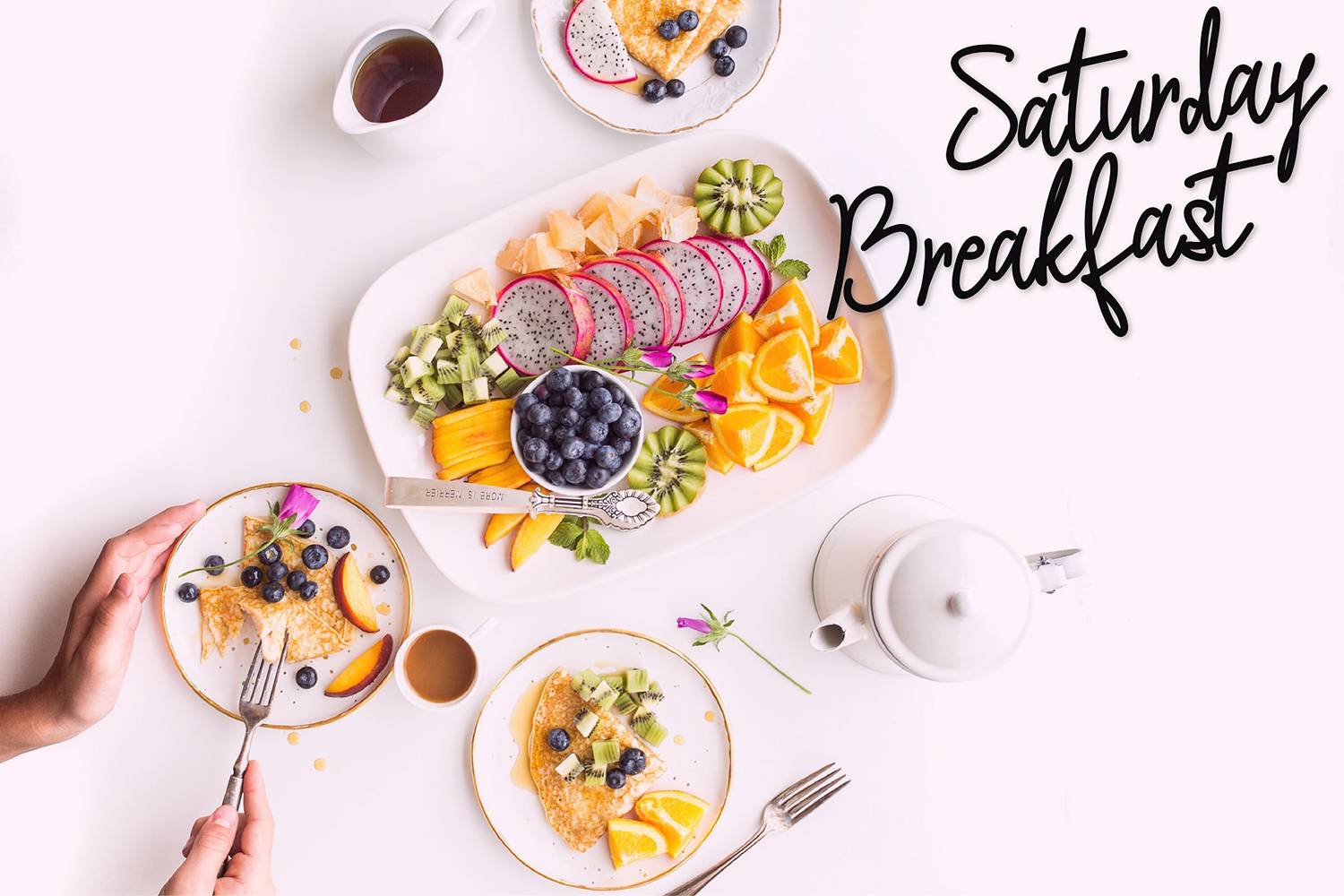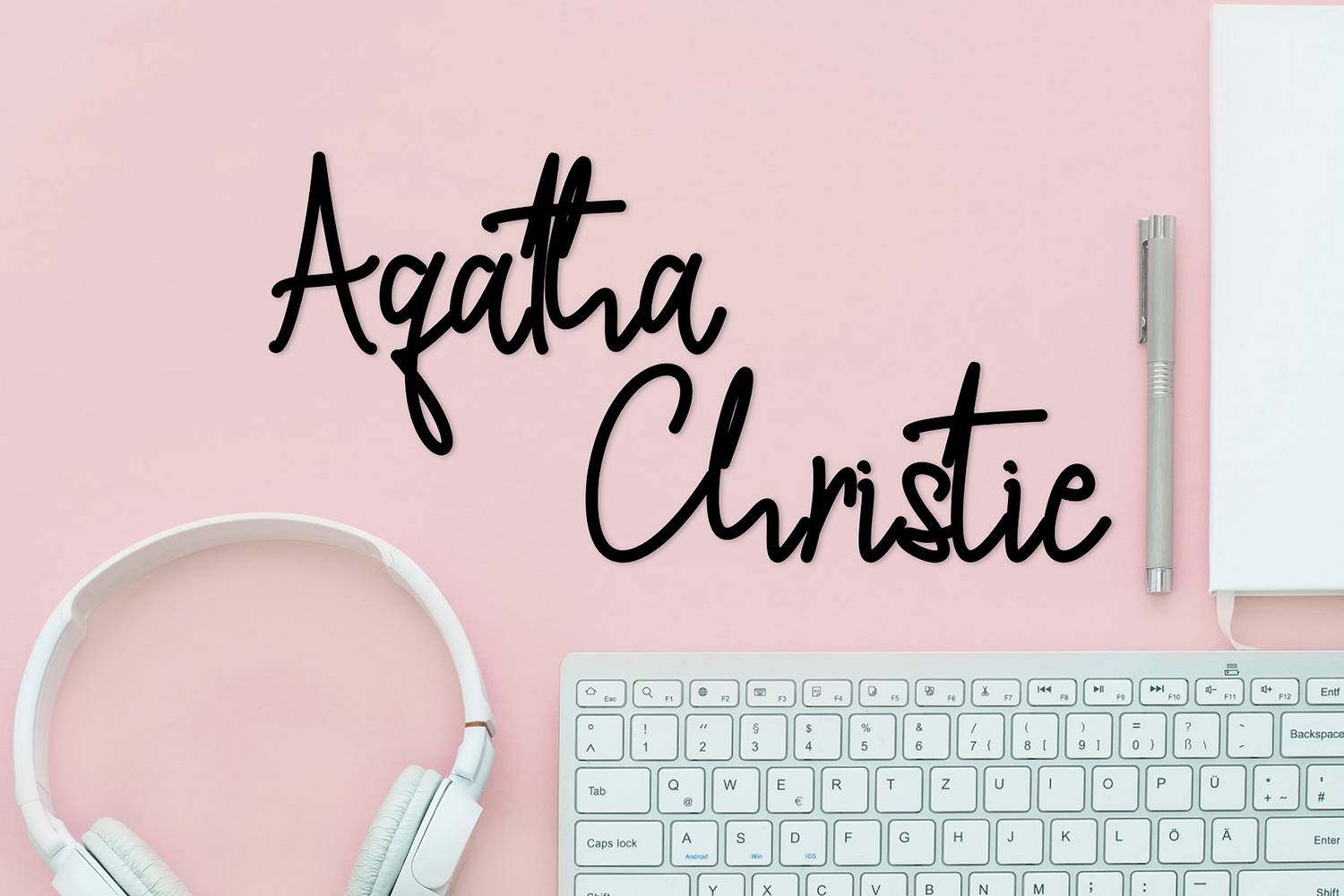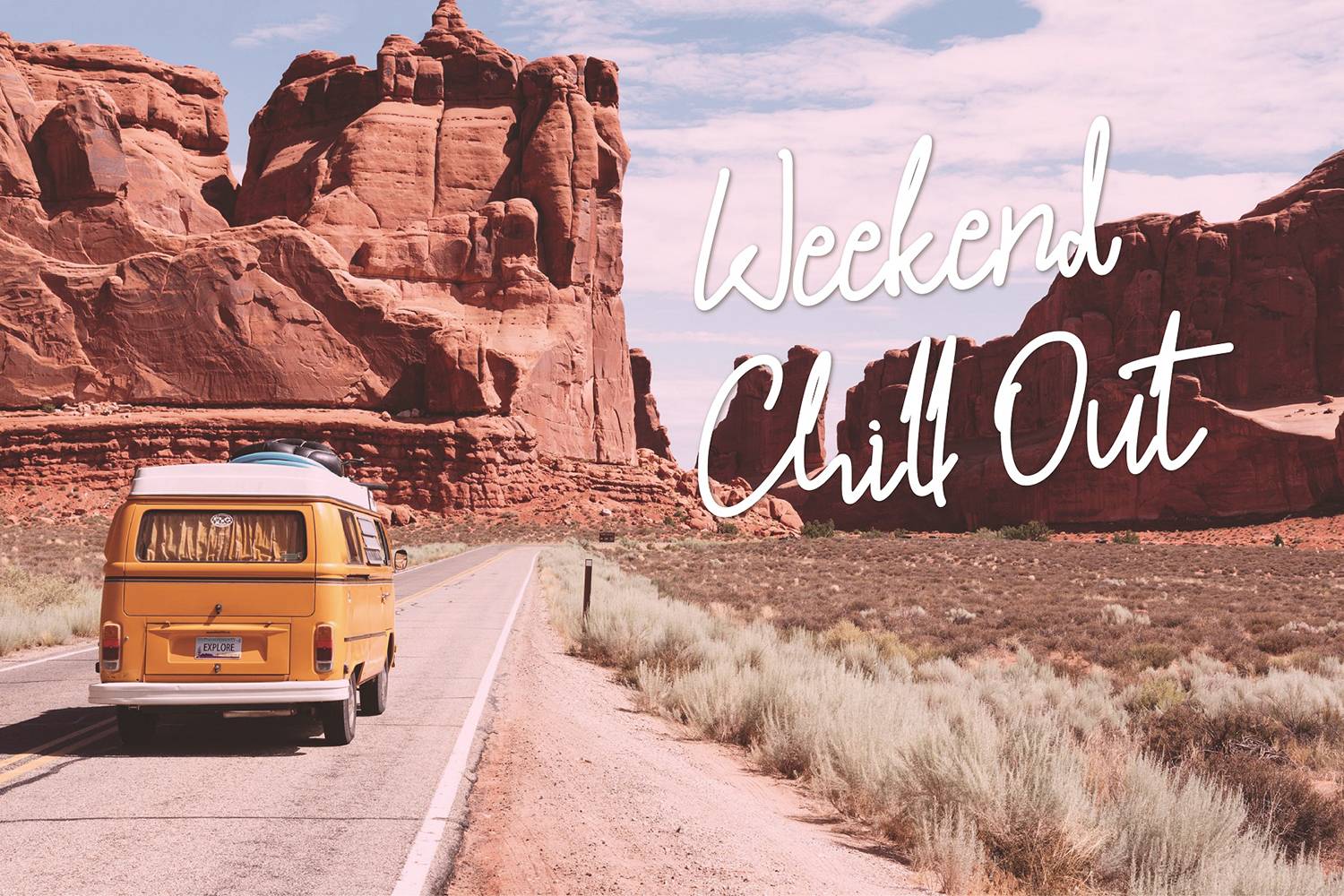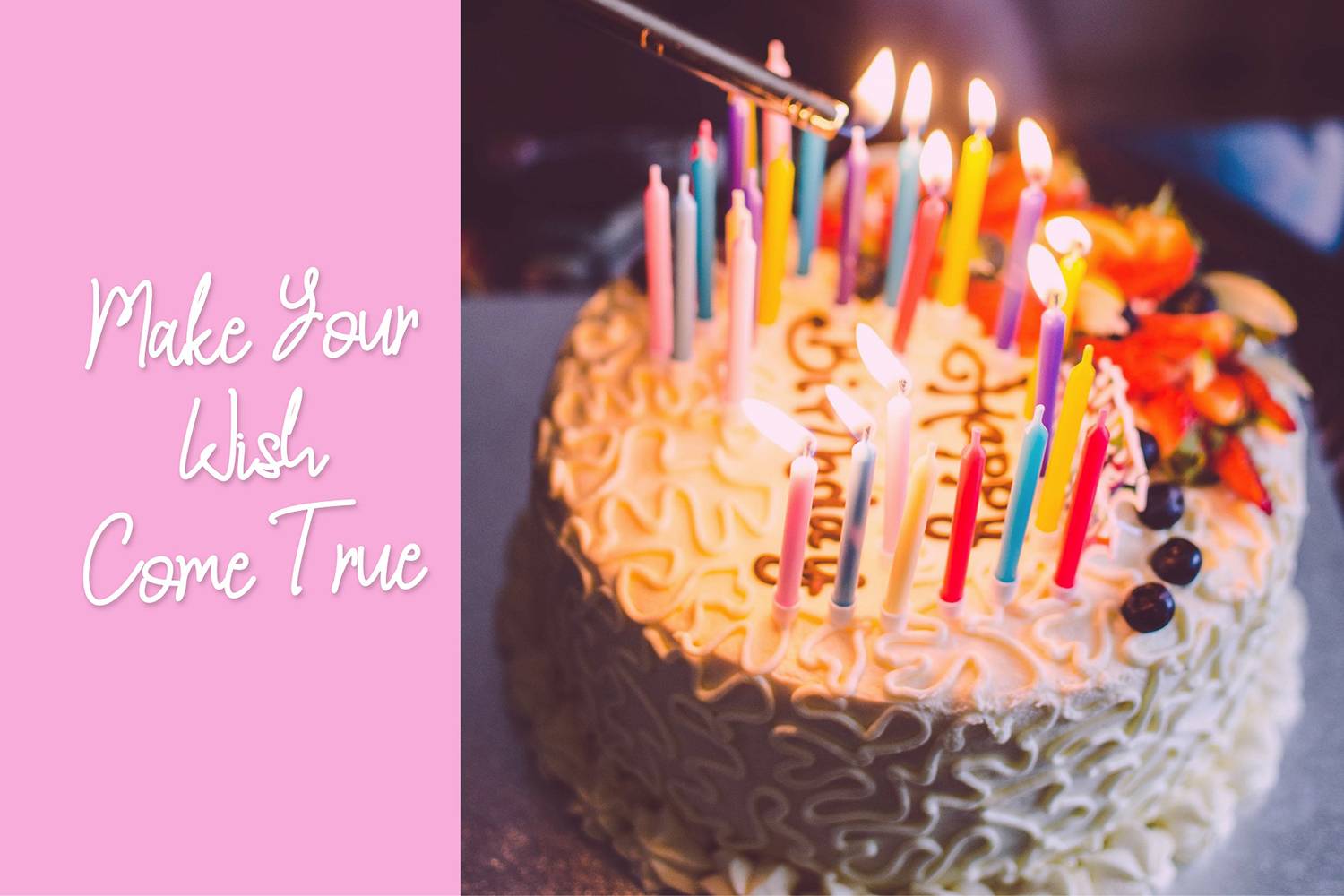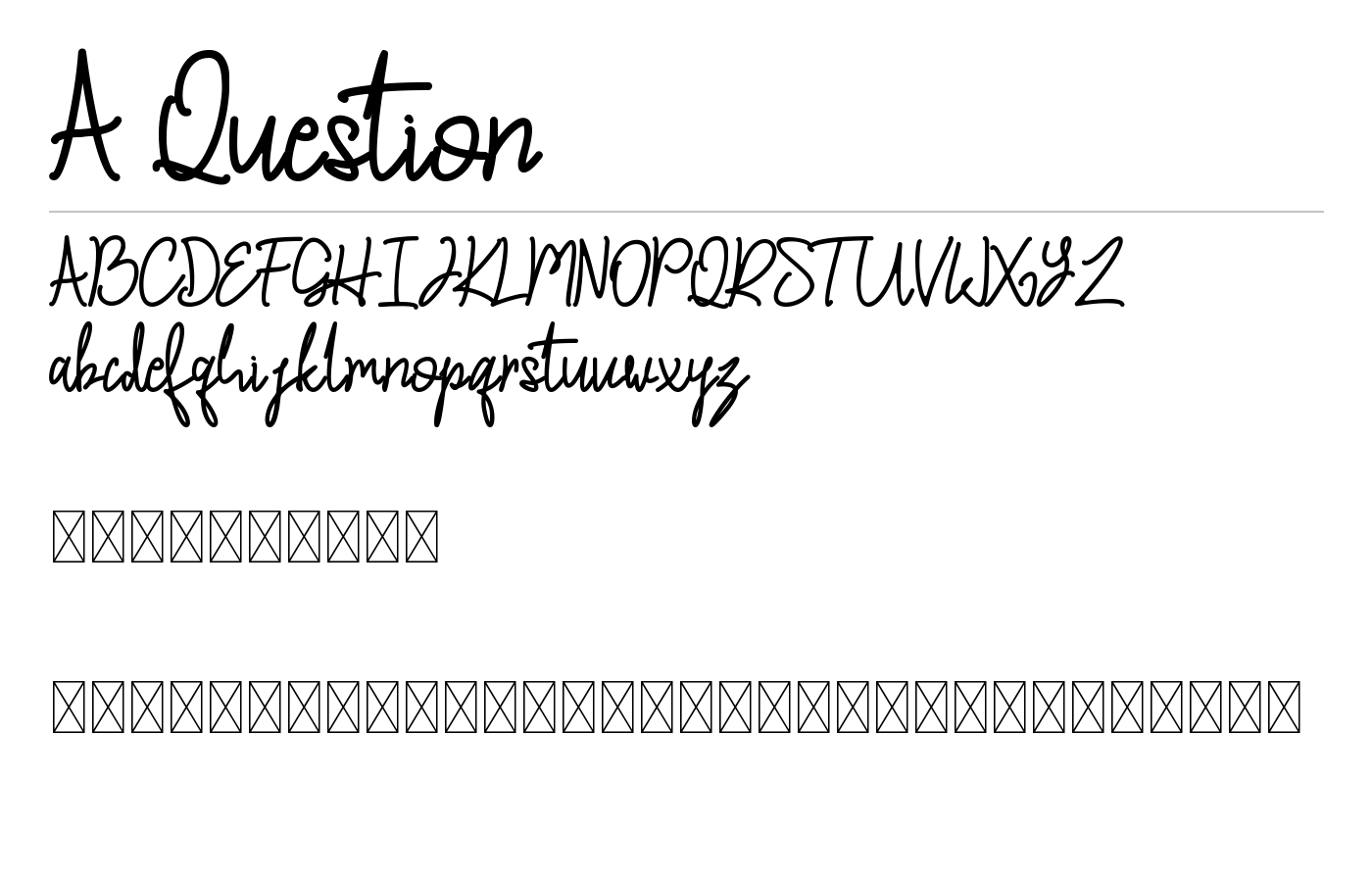
A Question Font is a playful and lively handwritten script that captures a casual, personal feel with its flowing, slightly irregular strokes. Its tall x-height and loosely connected letterforms make it charming and approachable, ideal for creative projects needing a friendly, informal touch. This font works well in invitations, greeting cards, and branding that values warmth and uniqueness.
A Question Font
About A Question Font
| Font family | A Question Font |
| Release date | 2020-09-01 |
| Designer | Taufiq Wijaya |